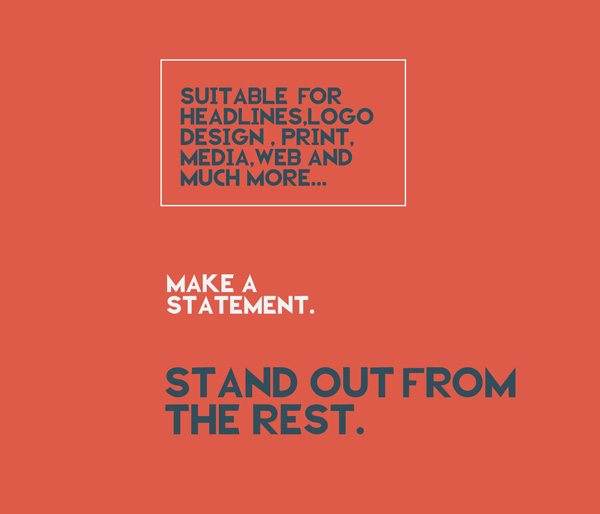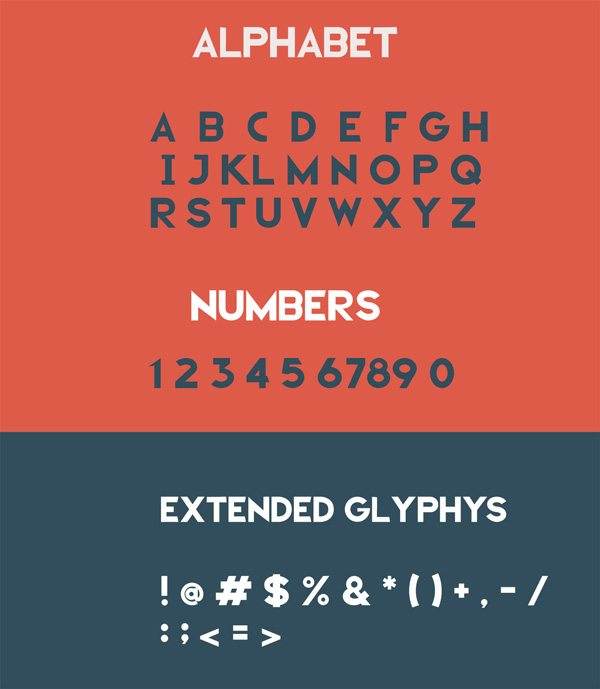
Madyson Font
Free Font Of The Day #223 – Madyson Font
Madyson Font
Madyson is clean and,elegant sans serif typeface.It is an all caps font inspired from architechture primarily. Its boldness and sharp edges commands a lot of attention and is perfect for logos,headlines,print,media,typography,web, photography,interaction design and much more. Designed by Ryan Anthony.